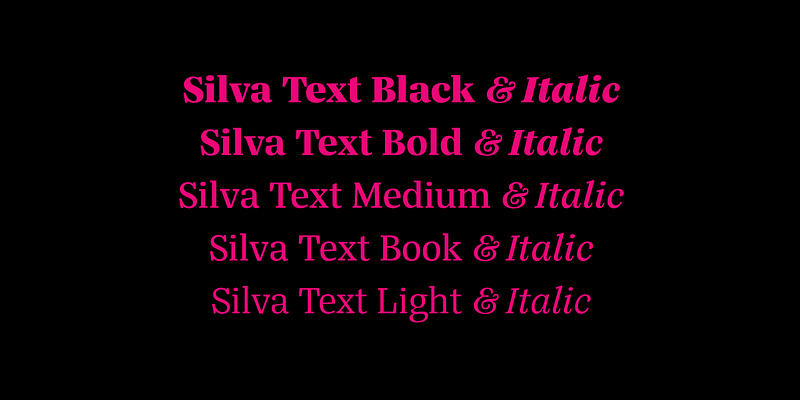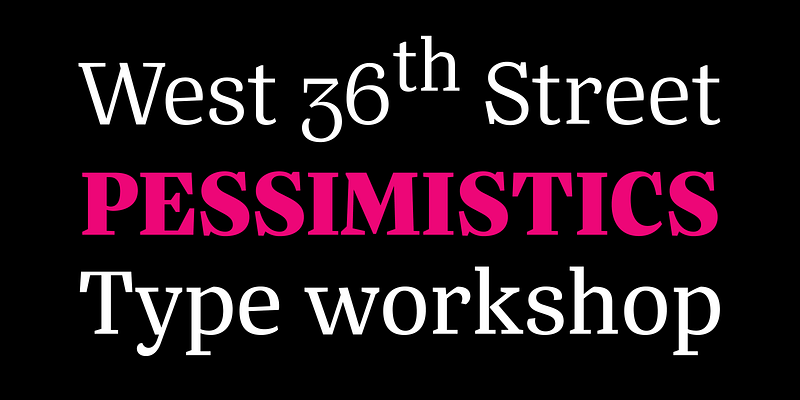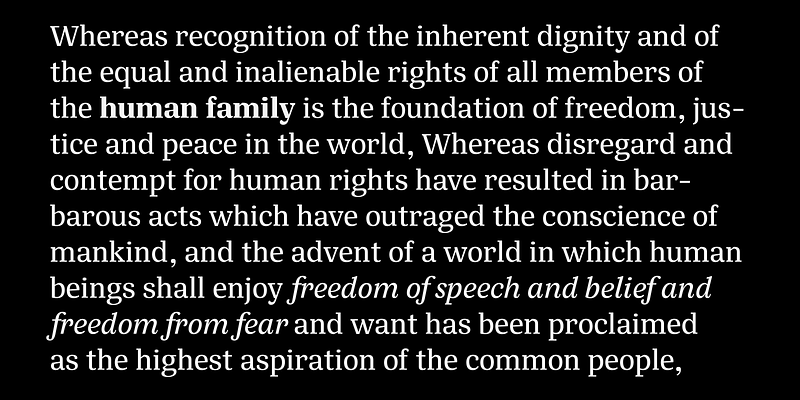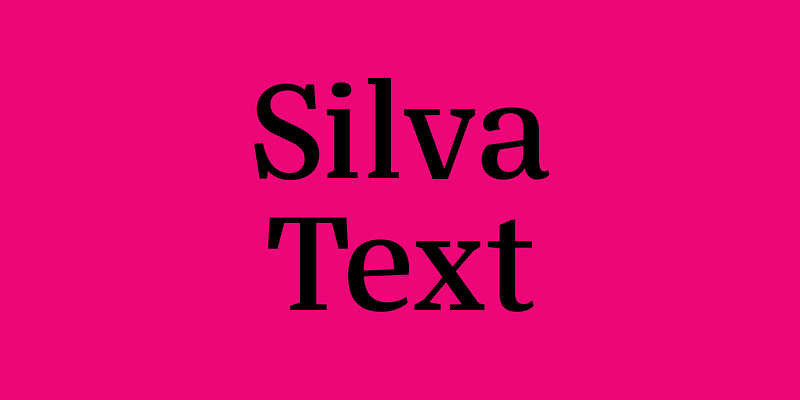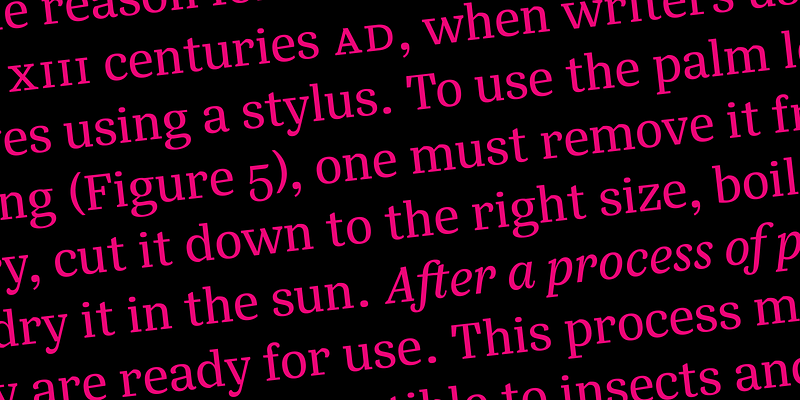
Designed primarily for editorial use, Silva is a superfamily ideal to typographically complex environments requiring a highly versatile typeface. With slightly condensed proportions, generous x-height, moderated ascenders and descenders and robust serifs, it is an extremely readable and economic type. Subdivided in two optical sizes, the family has a total of 26 fonts including italics. Silva has an extensive character set — with extensive language support — that provides both old style and lining figures as well as their respective tabular versions, fractions, various ligatures, small capitals, arrows and a number of different symbols.